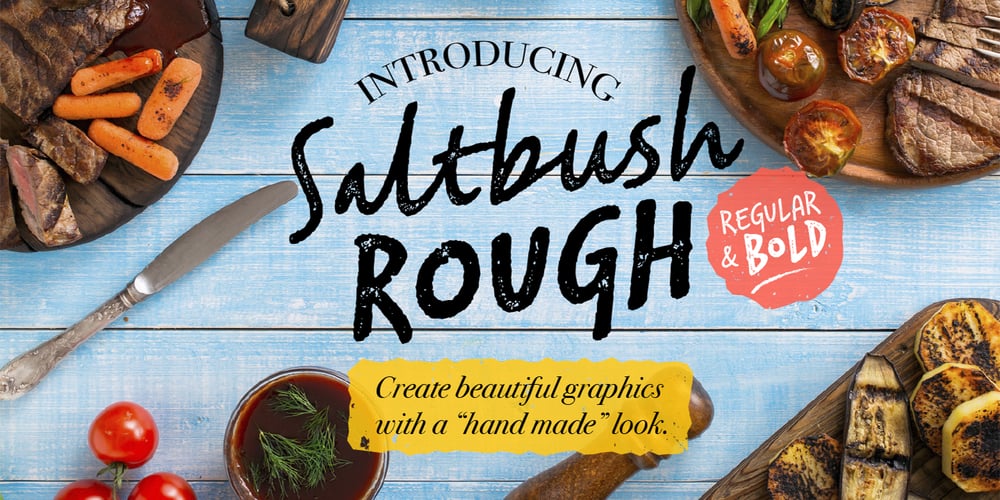
Saltbush Rough
Saltbush Rough font
Saltbush Rough Font Family was designed by Felipe Calderón and published by Estudio Calderon. Saltbush Rough contains 3 styles and family package options. Saltbush Rough from Estudio Calderón Is the burning version of Saltbush, a dry marker handwritten font with textured lines and multiple personalities! Equipped with a practice and funny smart ligatures group to get a “handcrafted” look for your designs. SEE WHAT’S INCLUDED!